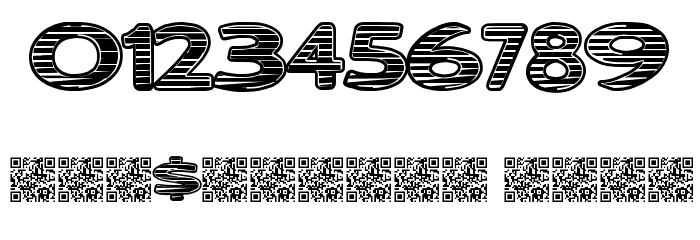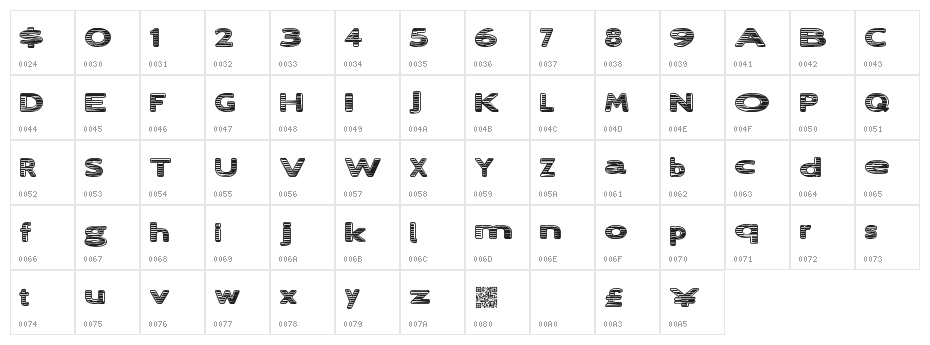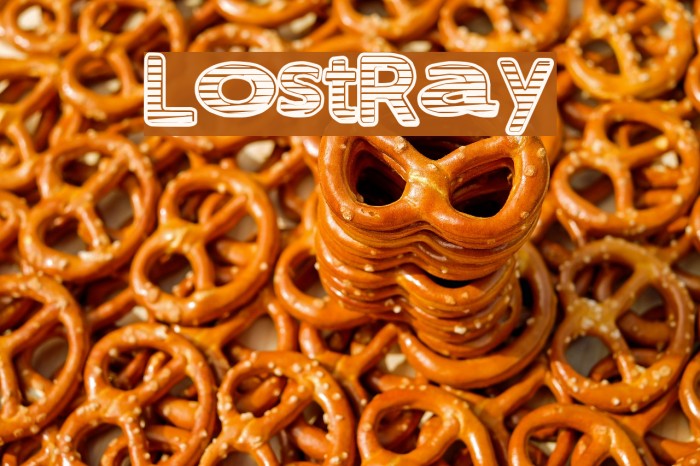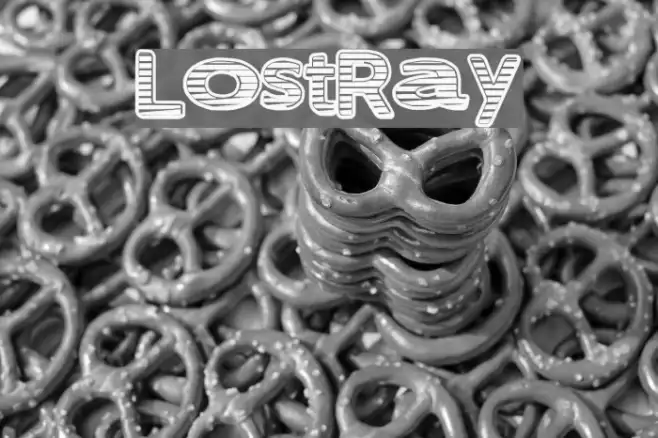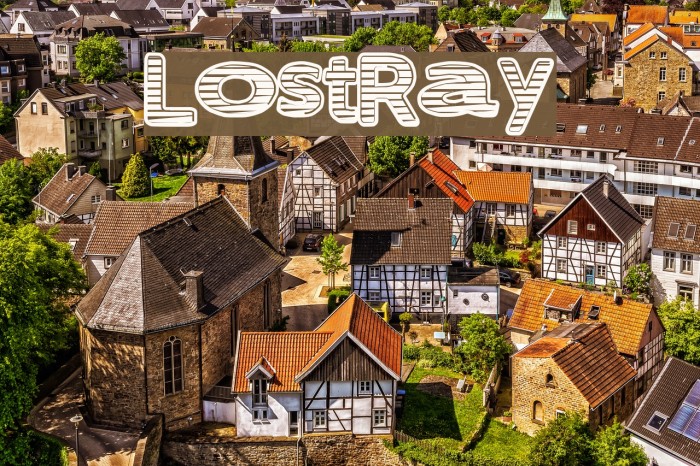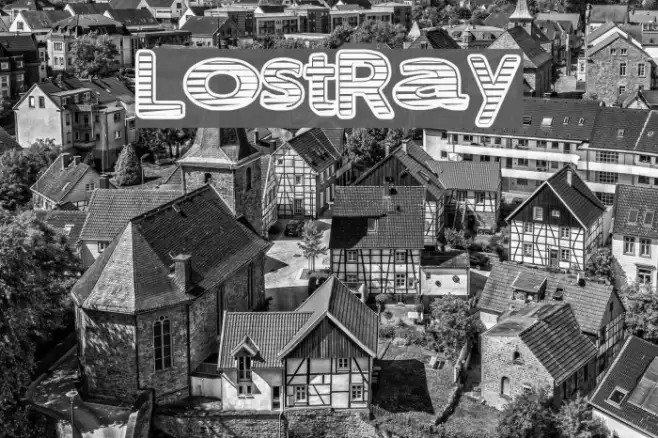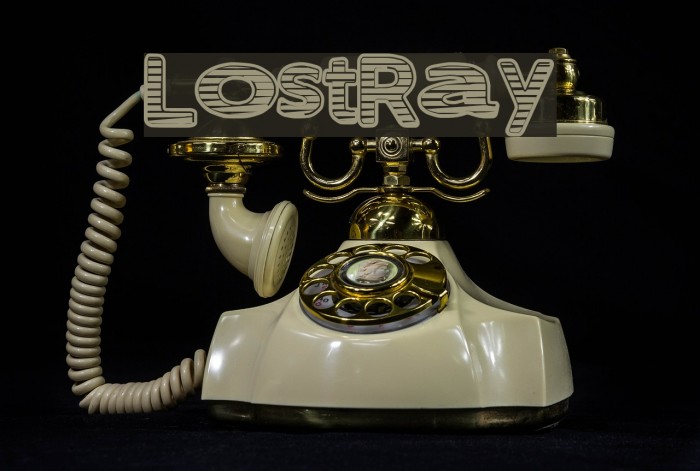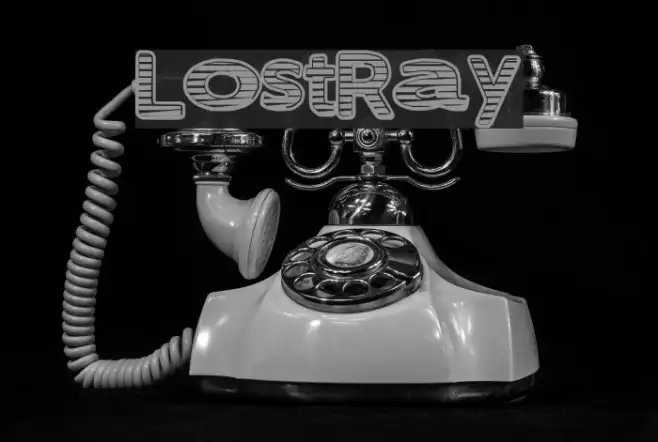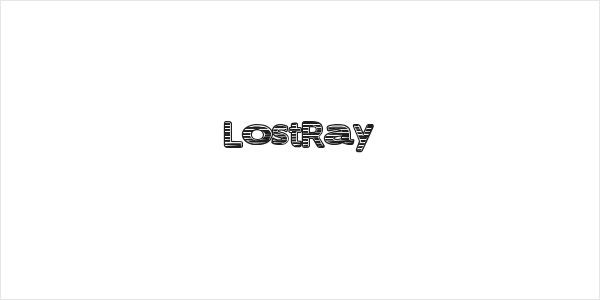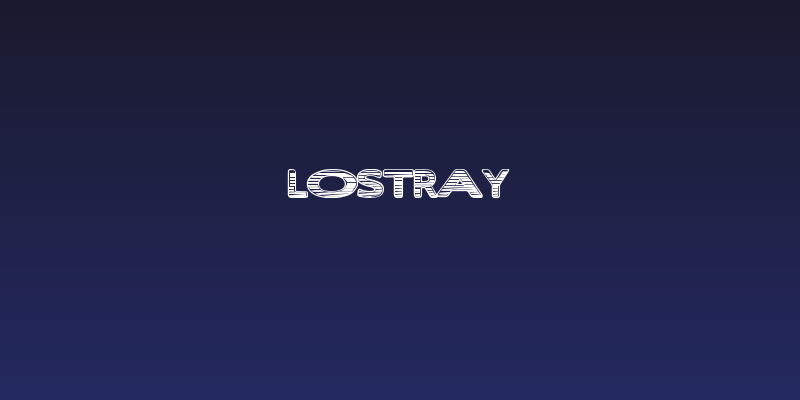
LostRay Font
LostRay Description
This font features a bold, decorative style with a unique striped pattern running horizontally through each character. The uppercase and lowercase letters maintain a consistent width, giving a uniform appearance across the alphabet. The numerals and special characters follow the same design, ensuring cohesion throughout. The font's playful yet structured design makes it stand out, with a modern twist that adds visual interest. Its bold presence is suitable for eye-catching designs, while the striped detail provides a sense of movement and depth.
| Proposed Projects | Ideal for posters, logos, branding materials, and any project requiring a striking visual impact. |